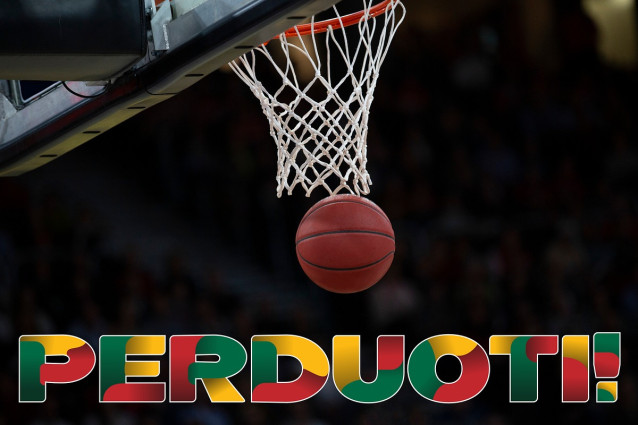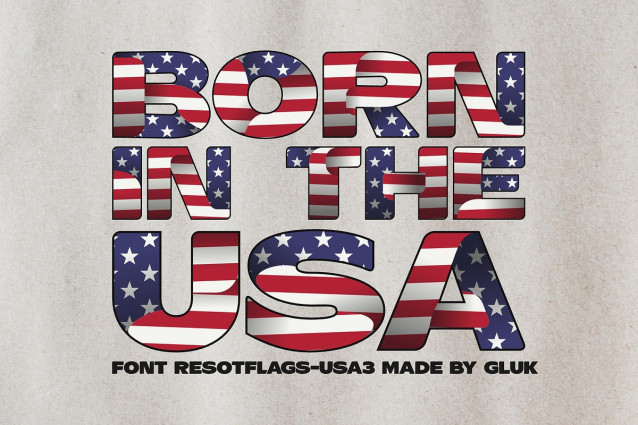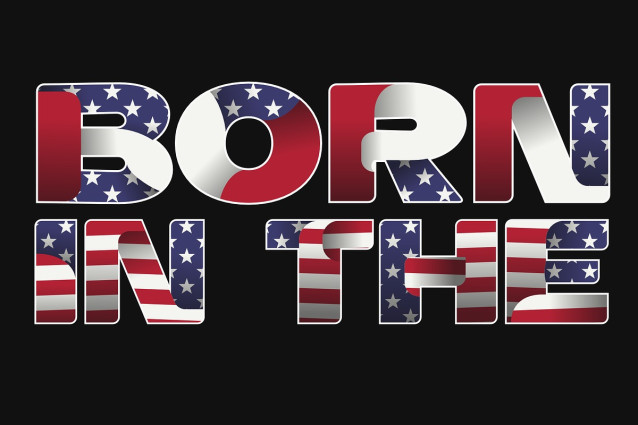
ResotFlags Font
ResotFlags family was created inspired by colors of some national flags. Fully vector color Letters allow you to create any size headers, banners or advertising slogans. Because of the predefined colors, fonts are prepared in variants for darker or brighter backgrounds. Automatic contextual alternates and ligatures built into the fonts compensate for whitespace area differences. Normal OTF ResotE font is included in the package, which allows you to create text in smaller sizes in style of the ResotFlags family.